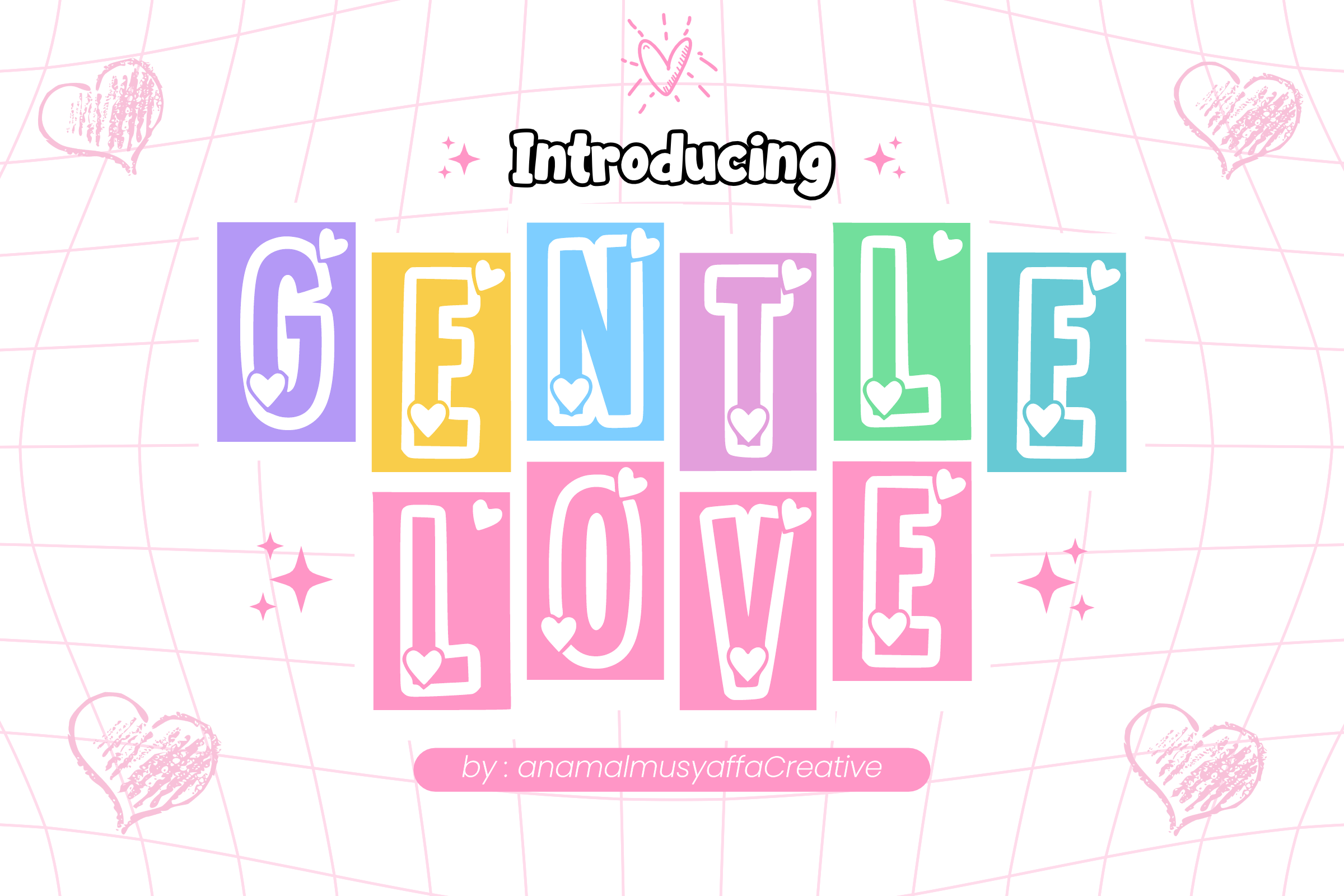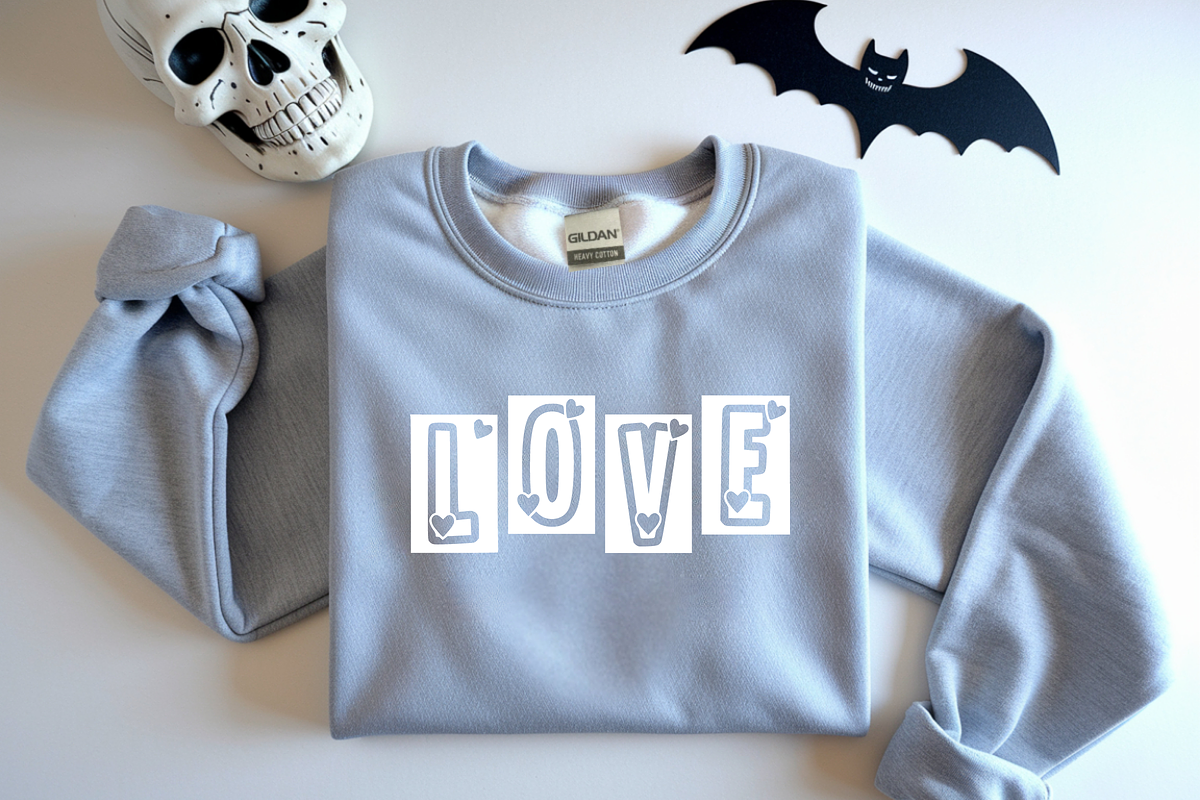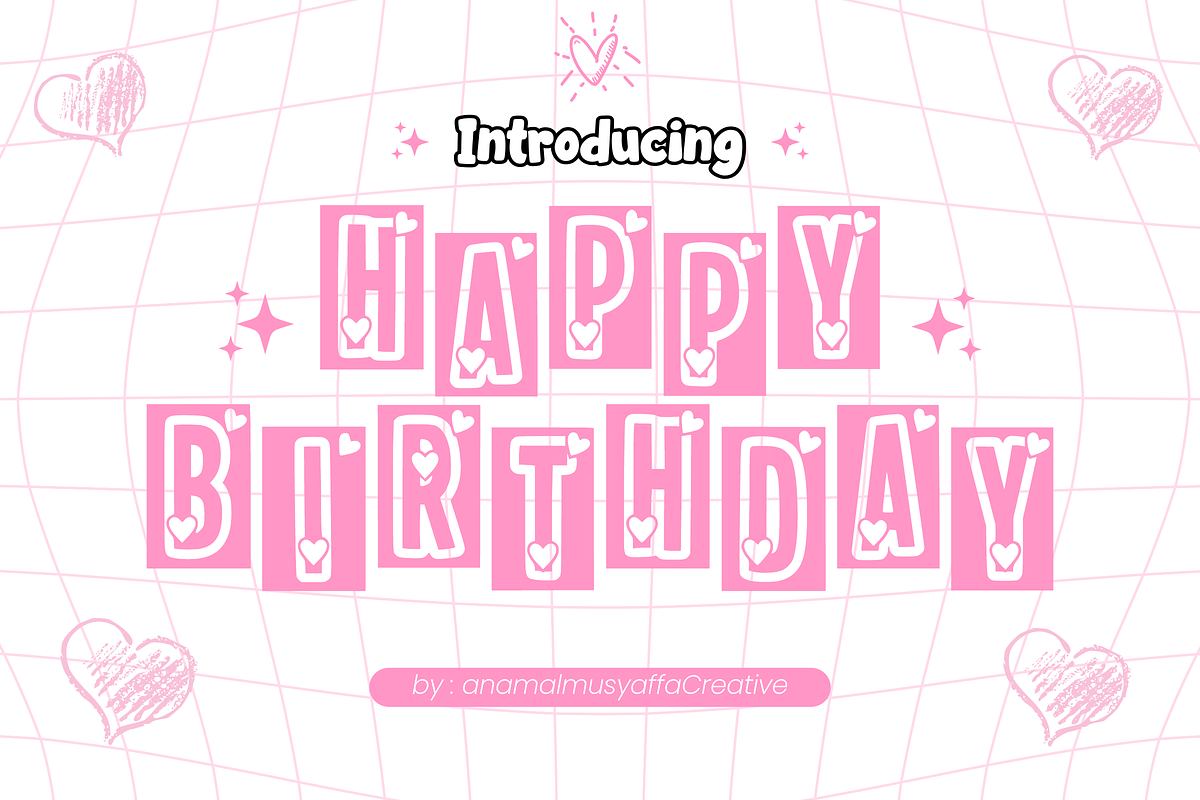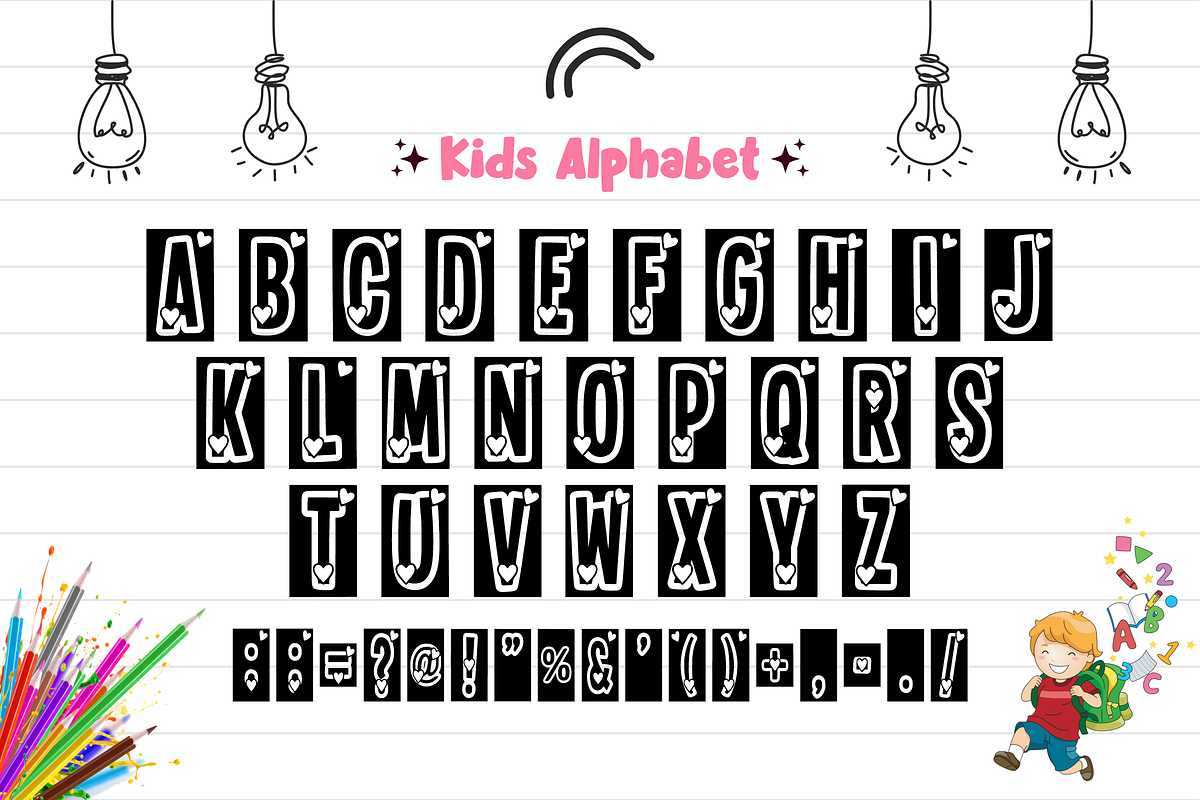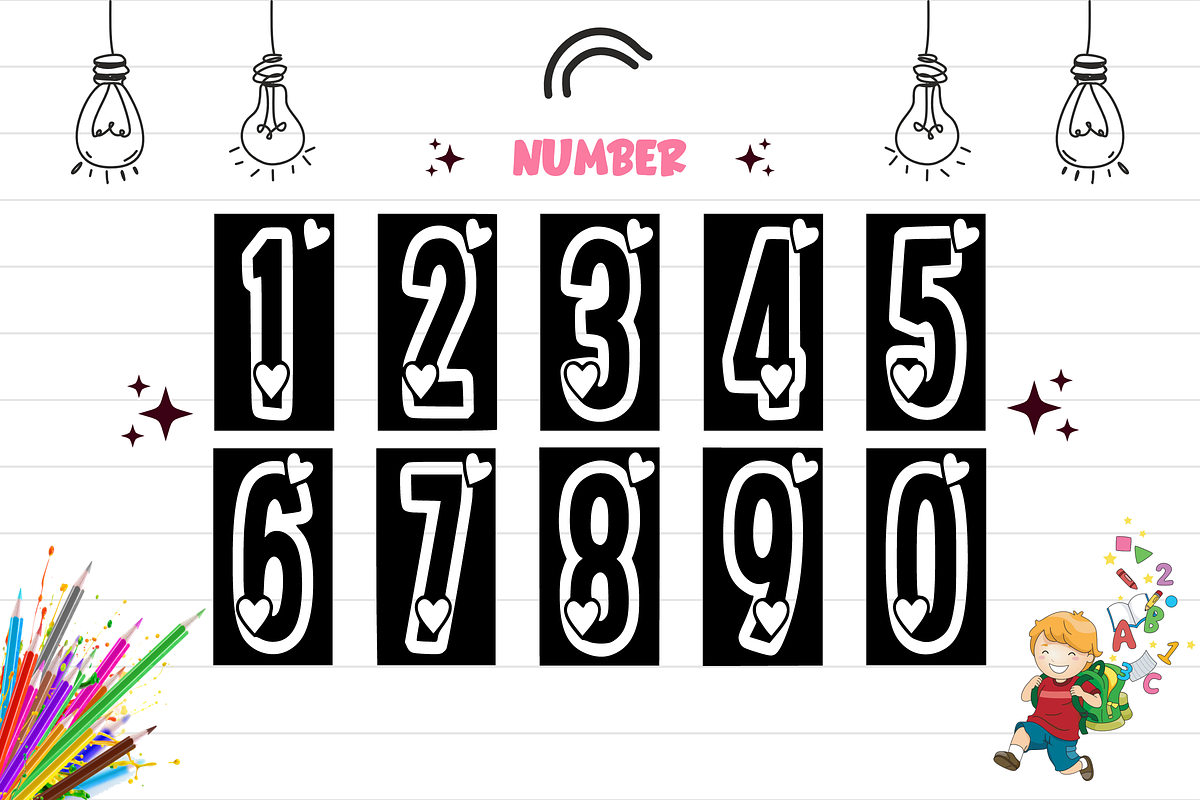
Gentle Love - Display Font
๐ Gentle Love: Sweet & Heart-Filled Display Font ๐ Fall in love with your designs using Gentle Love! This adorable display font features a unique "cut-out" style where each letter is placed inside a colorful block, accented with sweet heart details. It is the perfect choice for projects that need a touch of affection, kindness, and playful charm.
With its bold white silhouettes and romantic heart motifs, Gentle Love is designed to make your headlines look like precious love notes.
๐ Uppercase Alphabet โ Bold letters with integrated heart accents.
๐ข Numeric Set โ Cute and consistent numbers for special dates.
โจ Simple Symbols โ Essential punctuation for all your heartfelt messages.
Ideal for:
๐ Valentineโs Day Cards & Wedding Stationery
๐งธ Kids' Branding & Nursery Decor
๐ Sweet Apparel & Merchandise Prints
๐ Children's Storybooks & Covers
๐ฑ Cute Social Media Quotes & Templates